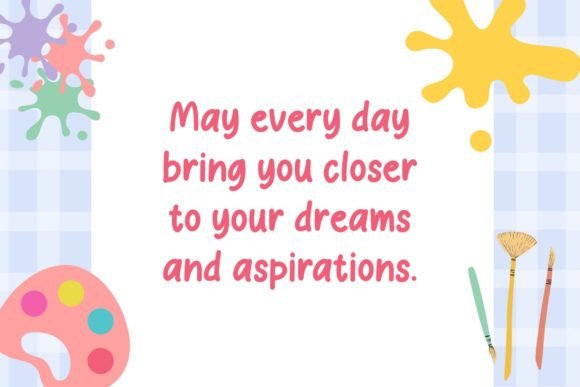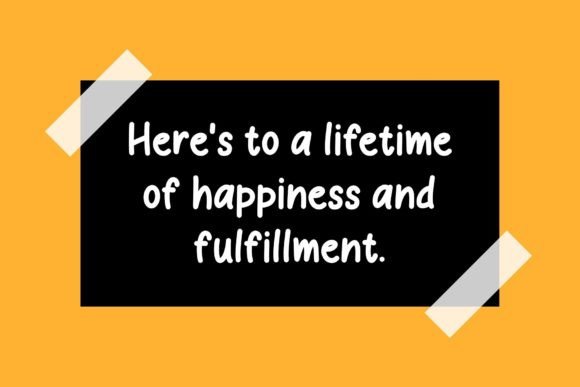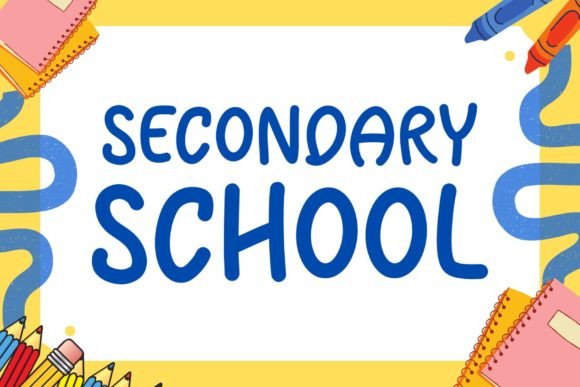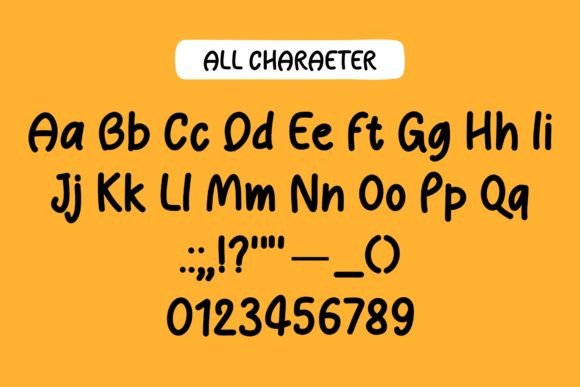
Introduction to Secondary School Font Font
Fonts play a crucial role in design, and the Secondary School Font font is a typeface that brings both character and versatility to any project. Whether you’re working on a branding project, a website, or a print design, the Secondary School Font font offers a unique style that can elevate your work.
Are you looking for a font that captures the essence of secondary education.
Look no further than Secondary School Font Designed with students, teachers, and educational materials in mind, this typeface combines professionalism with a touch of youthful energy.
Key Features of Secondary School Font Font
Why Choose Secondary School Font Font?
The Secondary School Font font is more than just a typeface – it’s a design tool that helps you communicate your message with style and clarity. Its unique character set and versatile design make it suitable for a wide range of applications, from elegant invitations to bold headlines.
With its carefully crafted letterforms and balanced proportions, the Secondary School Font font ensures readability and visual appeal across all mediums.
What makes Secondary School Font font special?
The Secondary School Font font stands out with its unique design, exceptional readability, and versatility across various design applications.